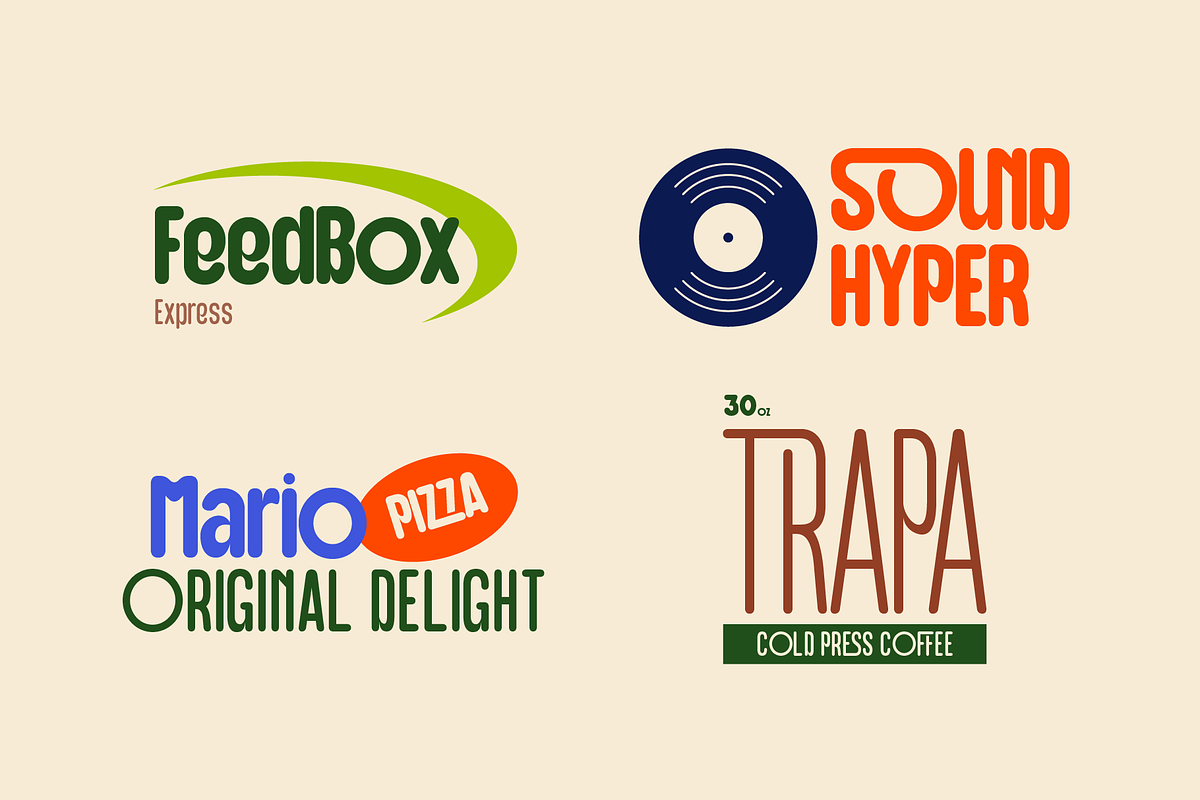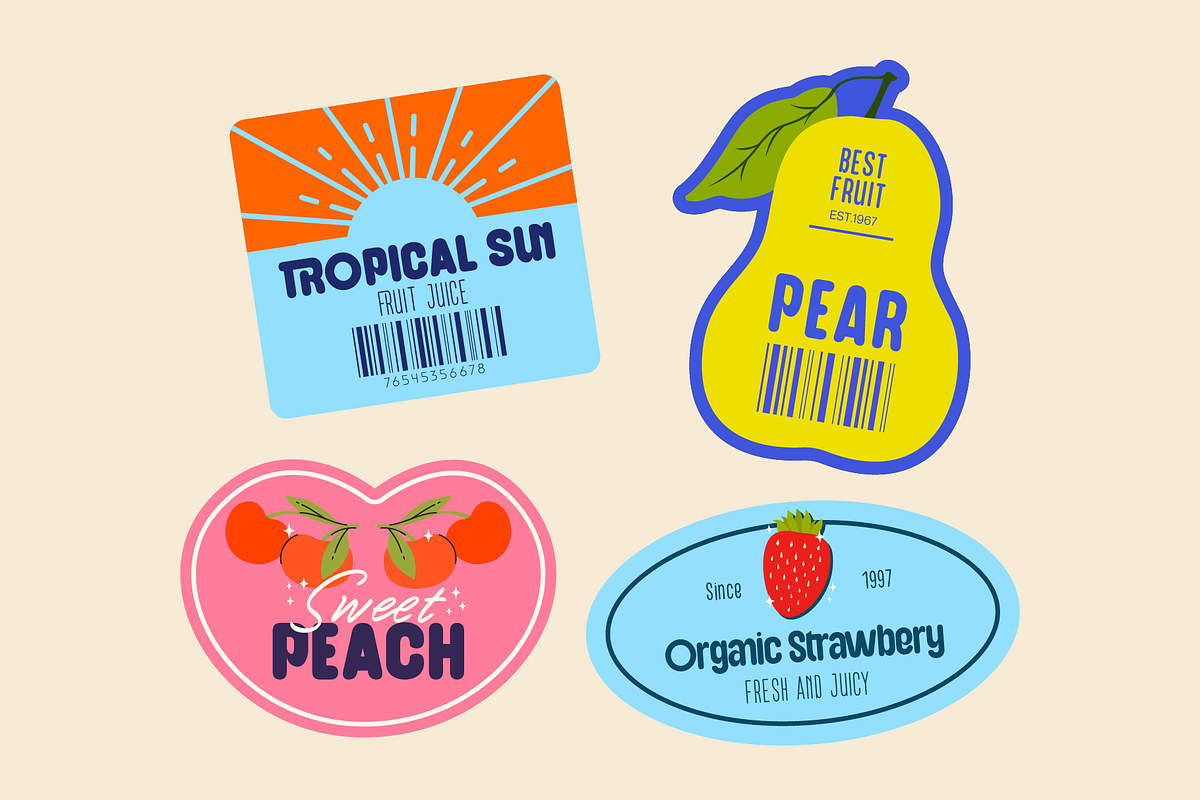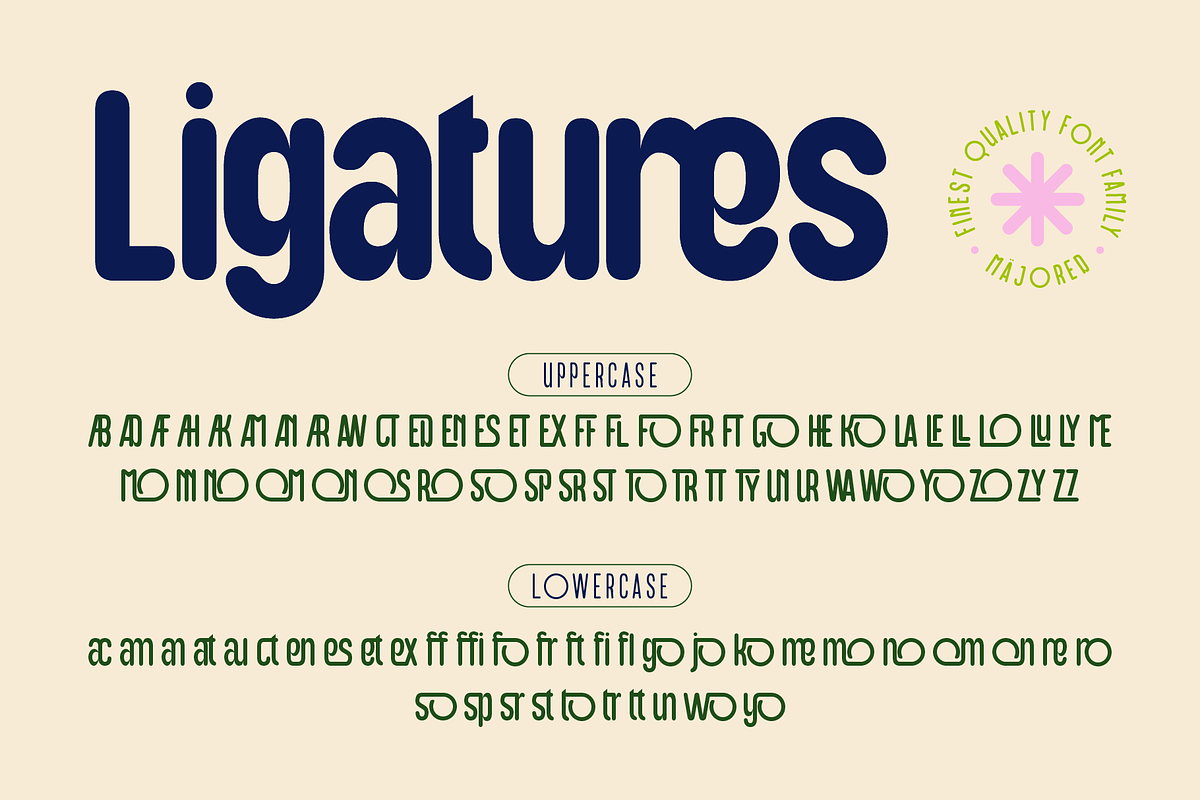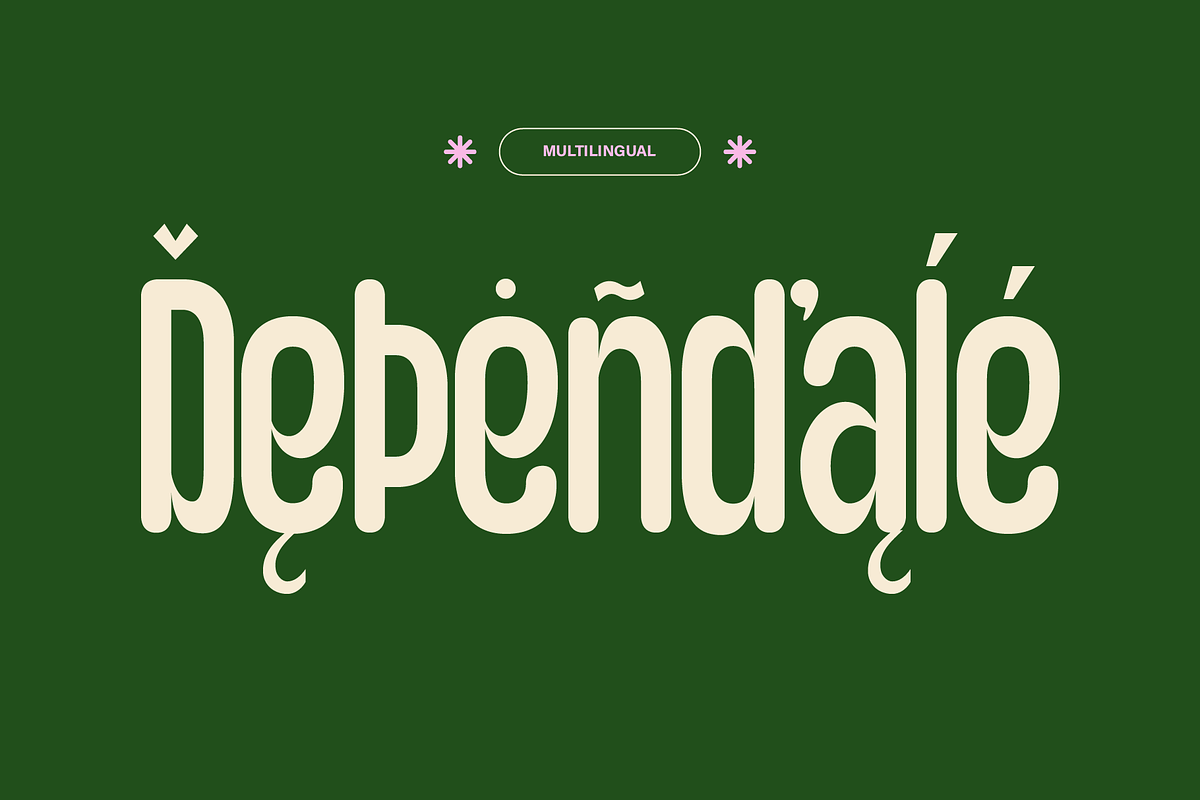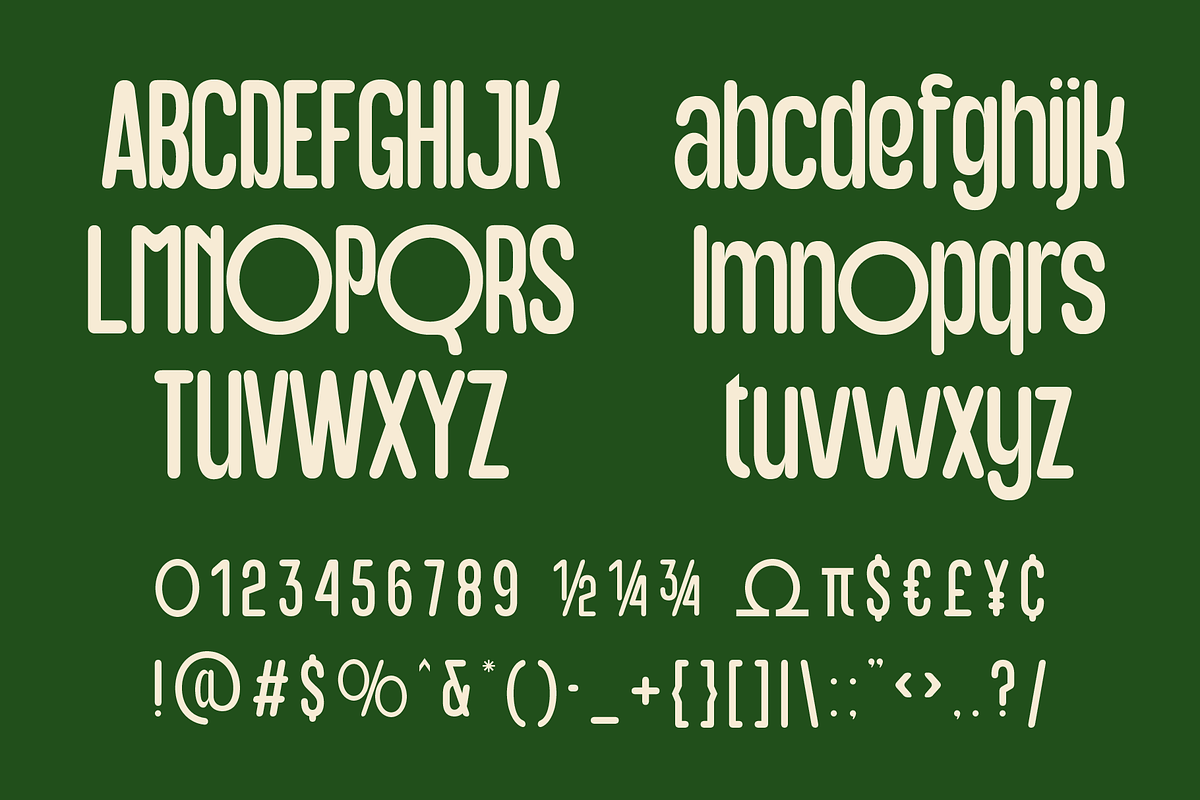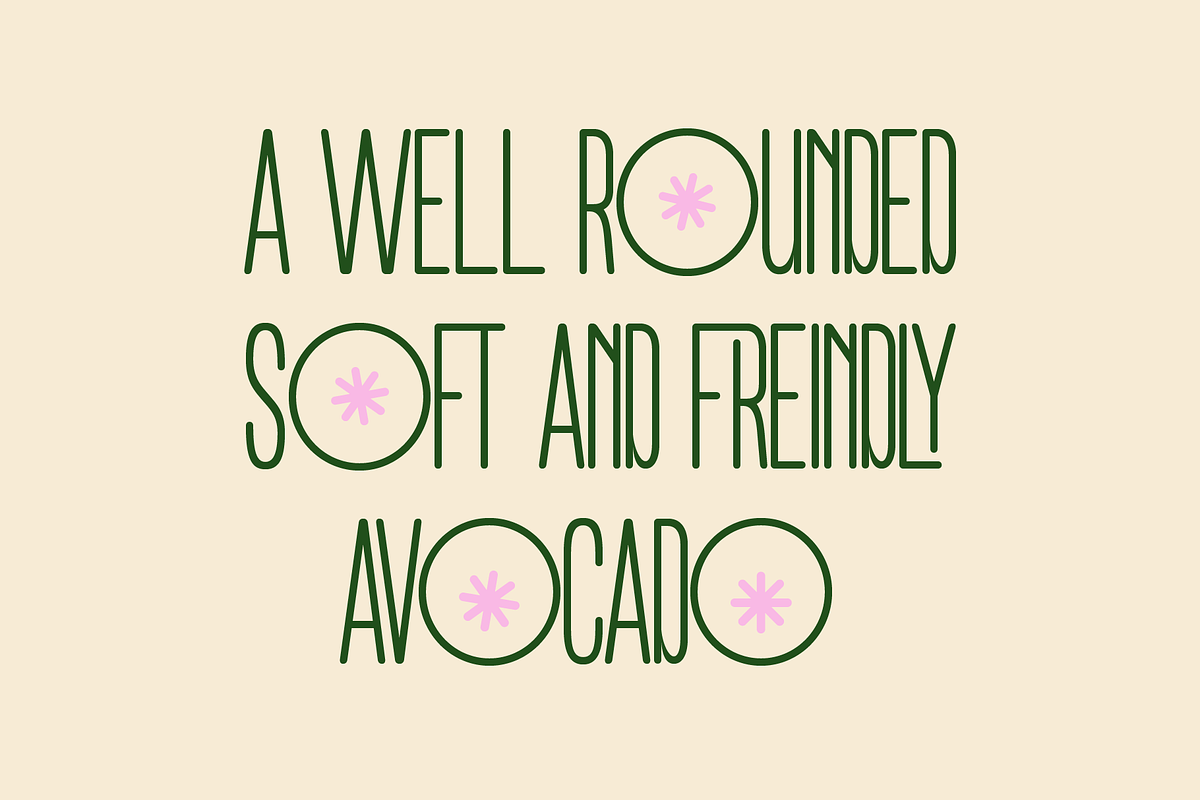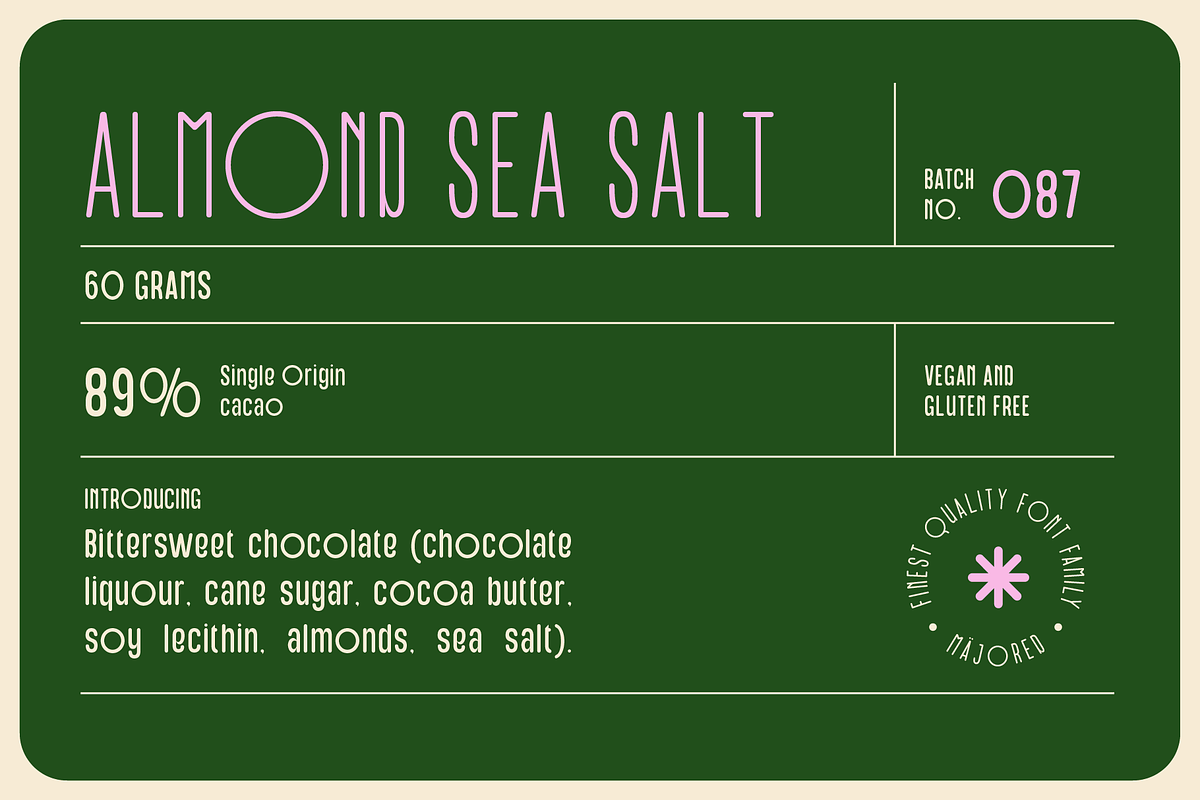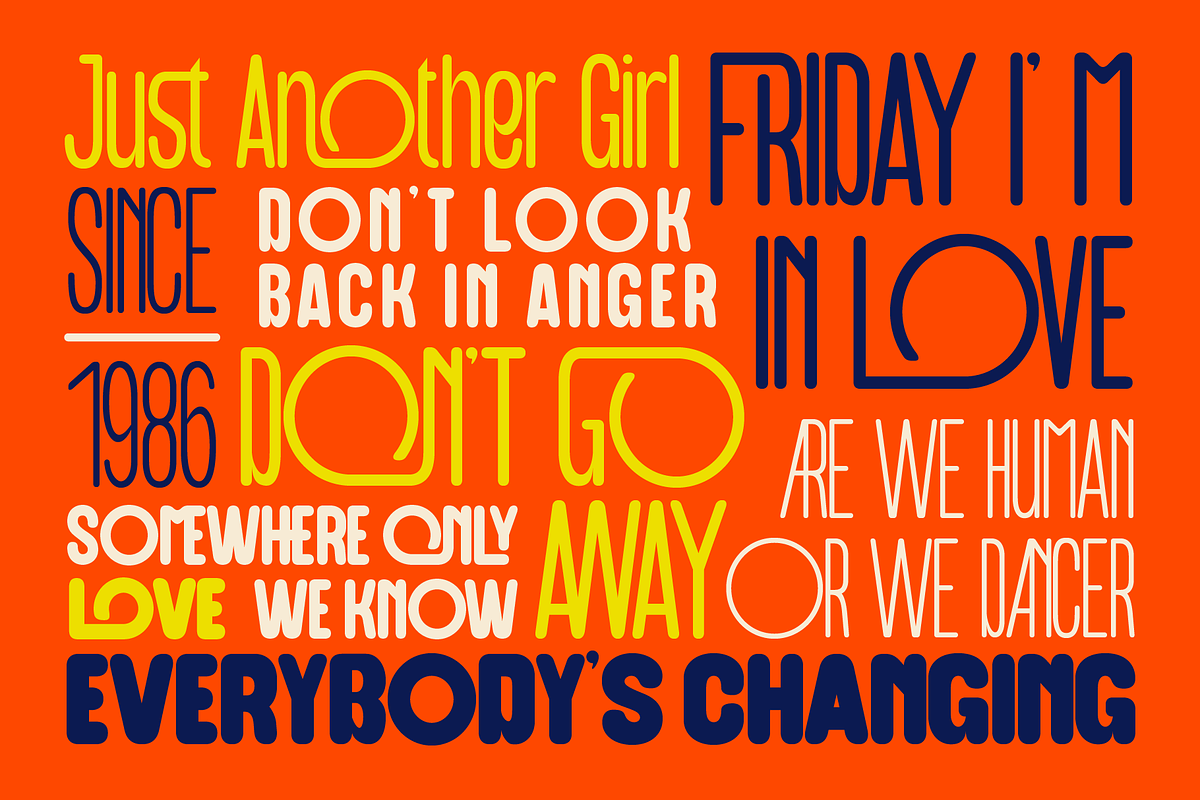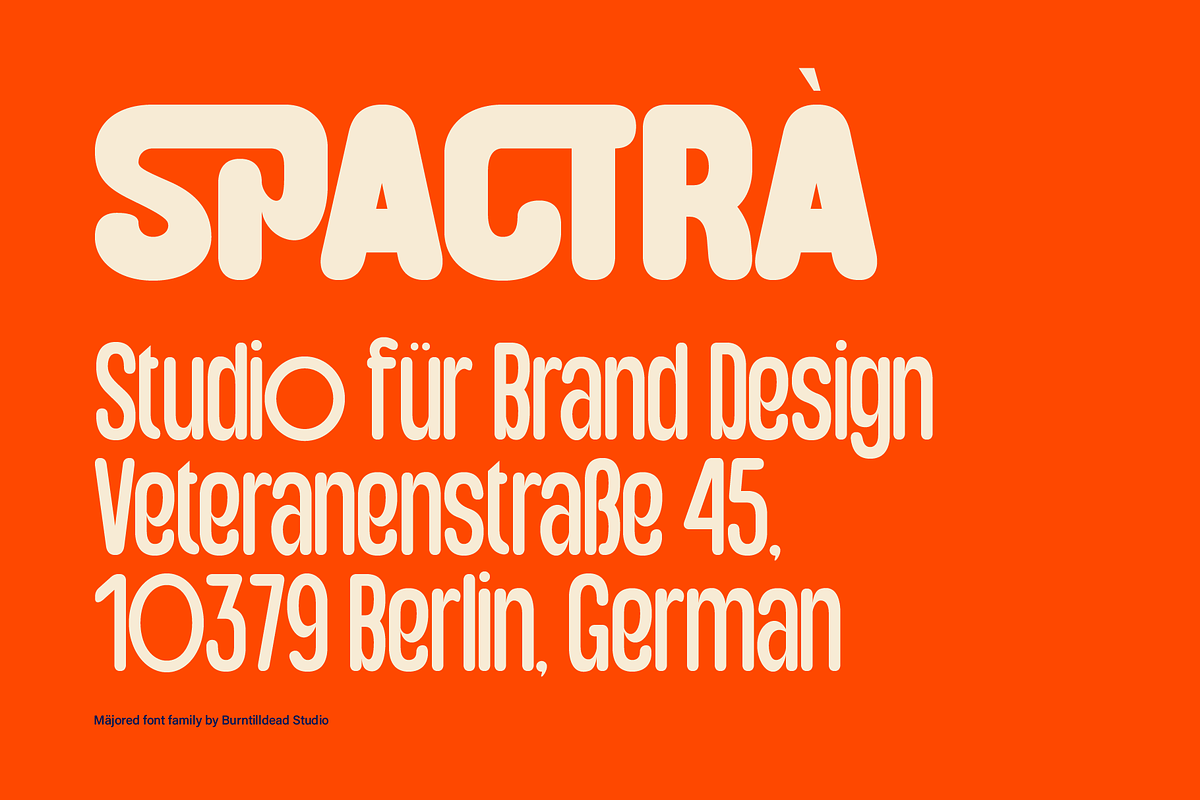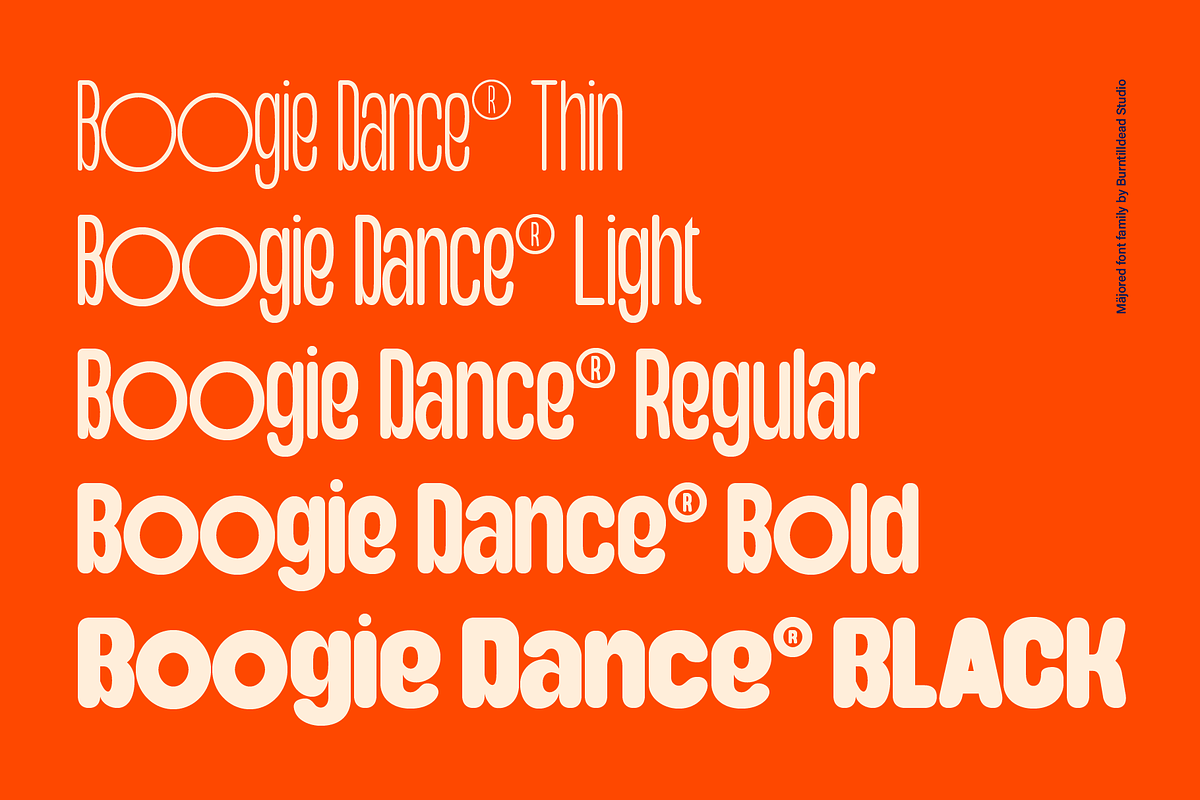
Majored Font Family
Say hello to Majored! Our groovy font family that playful and has unique style. With its bouncy curves make this font looks friendly, fun and energetic. This font also include ligature, alternate and multilingual support. With variety of weight, allowing you to create range of looks from thin to black. Despite its playful style, Majoread has clear readability. Ideal for playful brands, social media, poster for events, and anything that needs cheerful and inviting touch.